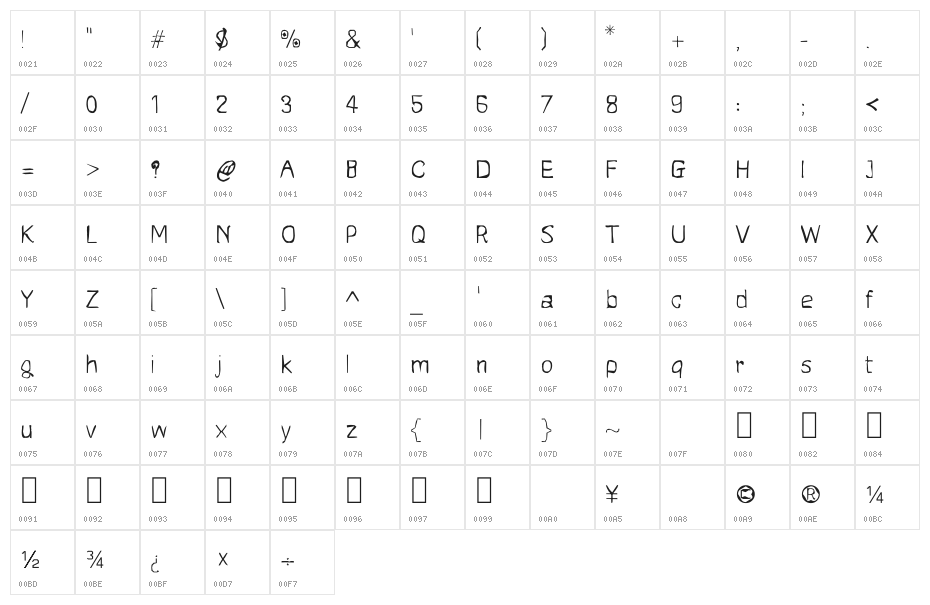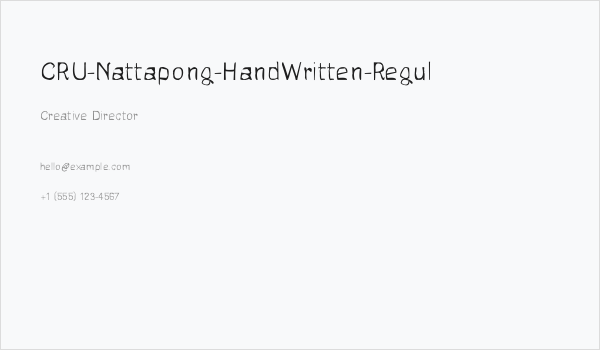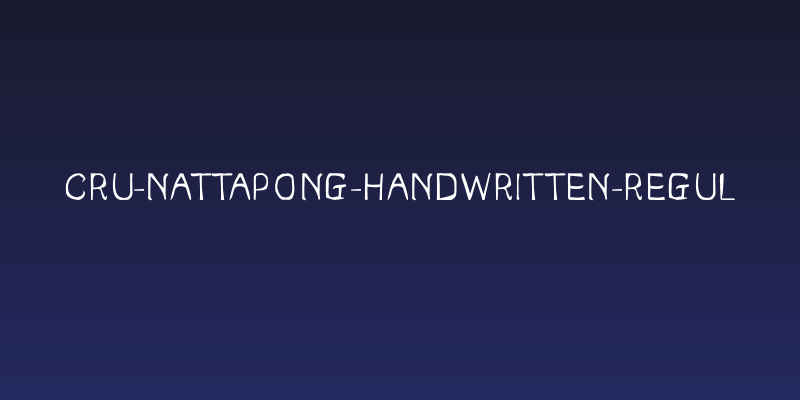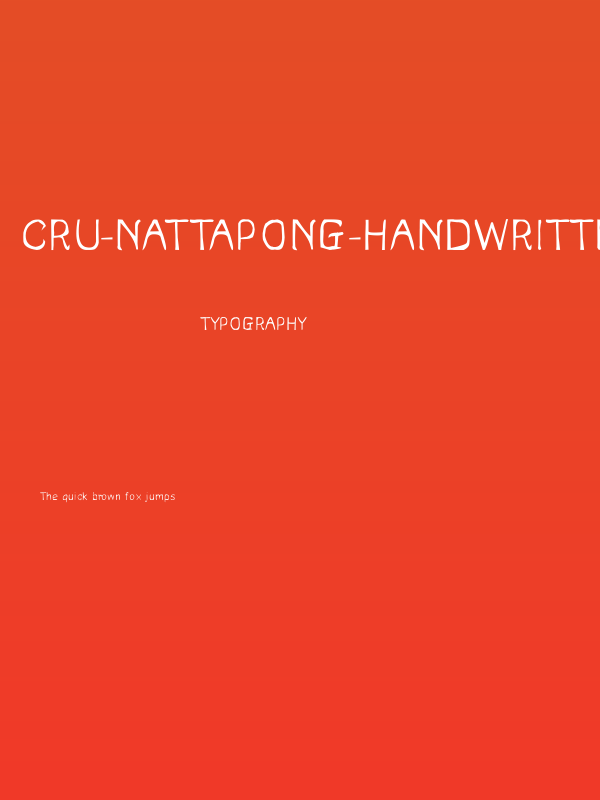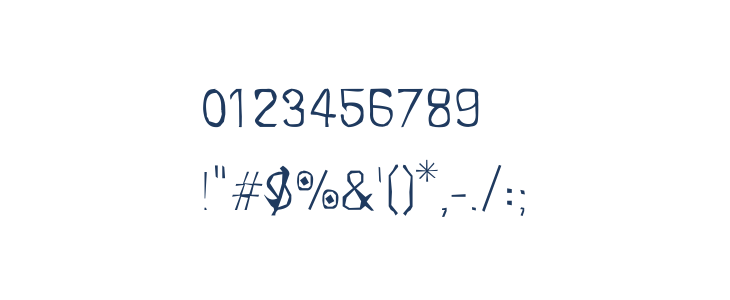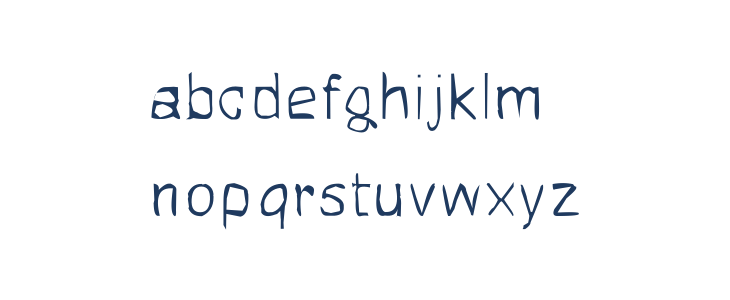
CRU-Nattapong-HandWritten-Regul Font
CRU-Nattapong-HandWritten-Regul Description
This font features a unique handwritten style that exudes a casual and artistic vibe. The characters are slightly irregular, giving them a personal touch that mimics natural handwriting. The uppercase letters are bold and distinct, while the lowercase letters maintain a consistent flow with subtle variations in stroke width. Numbers and special characters follow the same handcrafted aesthetic, making them suitable for creative projects. The overall appearance is both playful and approachable, making it ideal for designs that require a personal or informal touch.
| Overall Style | Casual, Artistic |
| Proposed Projects | Ideal for greeting cards, personal branding, creative posters, and informal invitations. |